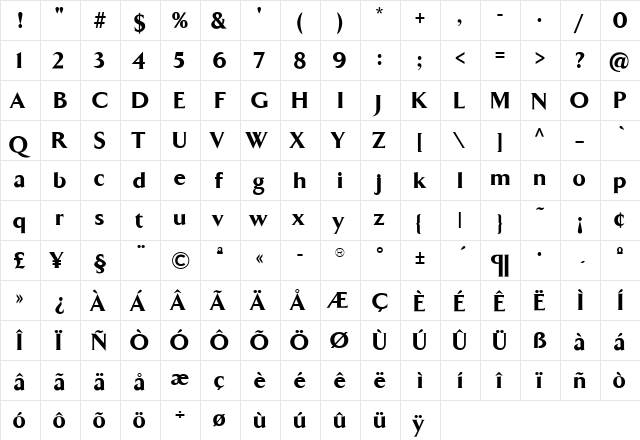
TFArrow Extrabold
Design Context for TFArrow Typeface
TFArrow takes a measured approach to typography — its balanced proportions and neutral character make it a reliable workhorse for both digital and print work. Its bold stroke weight gives it real presence on the page.